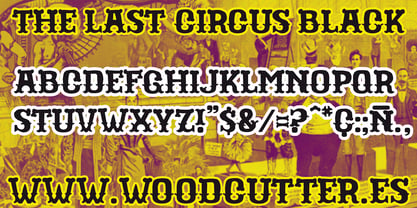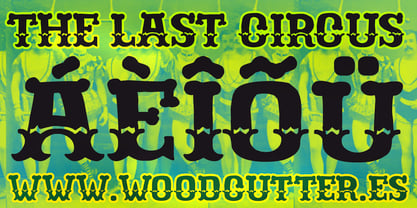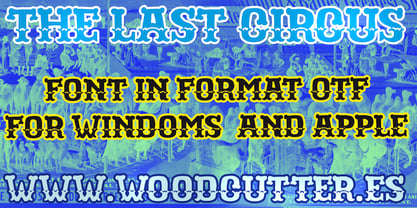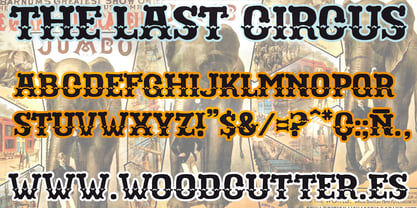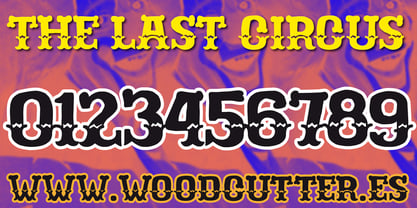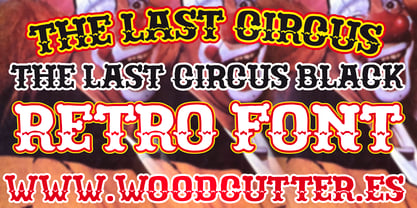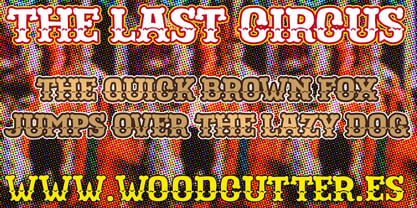
The Last Circus
by Woodcutter
The The Last Circus Font Family was designed by Jordi Manero and published by Woodcutter. The Last Circus contains 2 styles and family package options. More about this family
THE LAST CIRCUS is a type family in uppercase with accents, inspired by vintage circus posters with a classic western flair. Its letters are decorated and divided by a white inner shadow, creating a dynamic, three-dimensional effect that evokes the vibrant, nostalgic aesthetics of 19th-century traveling shows. With bold strokes and strong proportions, each character radiates power, drama, and a unique theatrical spirit.
It’s perfect for designs that demand instant attention: posters, album covers, t-shirts, band logos, or any project needing a bold stage presence. The main version, THE LAST CIRCUS, plays with light and shadow within each letter, while its counterpart, THE LAST CIRCUS BLACK, uses the same shapes in solid black, offering a more straightforward and punchy option.
Both styles work perfectly together, enabling creative compositions and clear visual hierarchies. This typeface is a tribute to spectacle, the colorful chaos of the circus, hand-painted signs, and bold popular graphics.